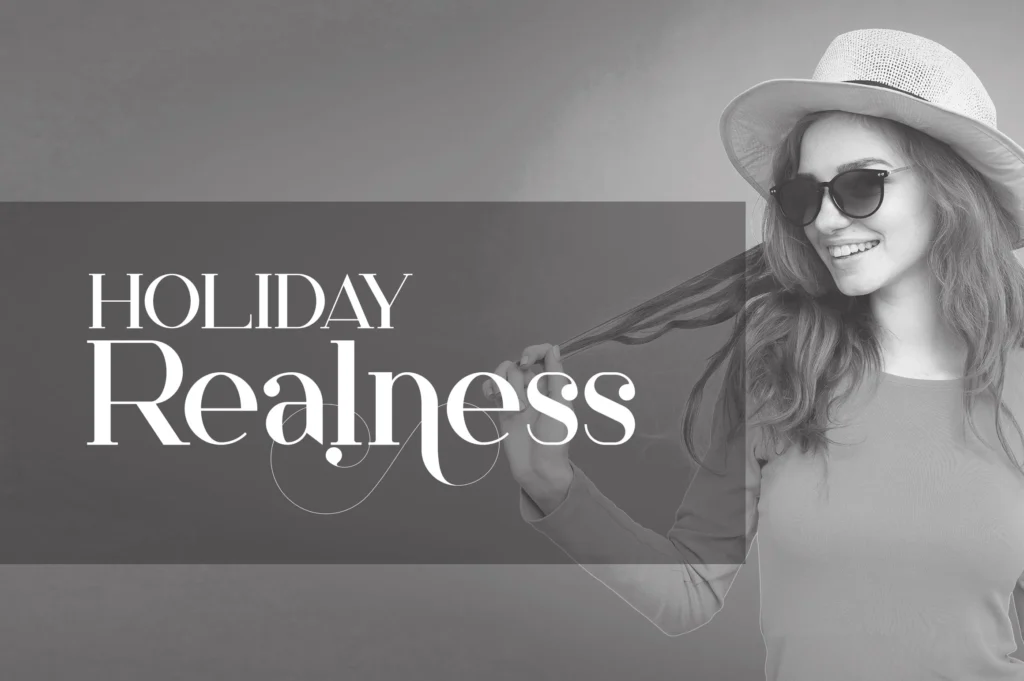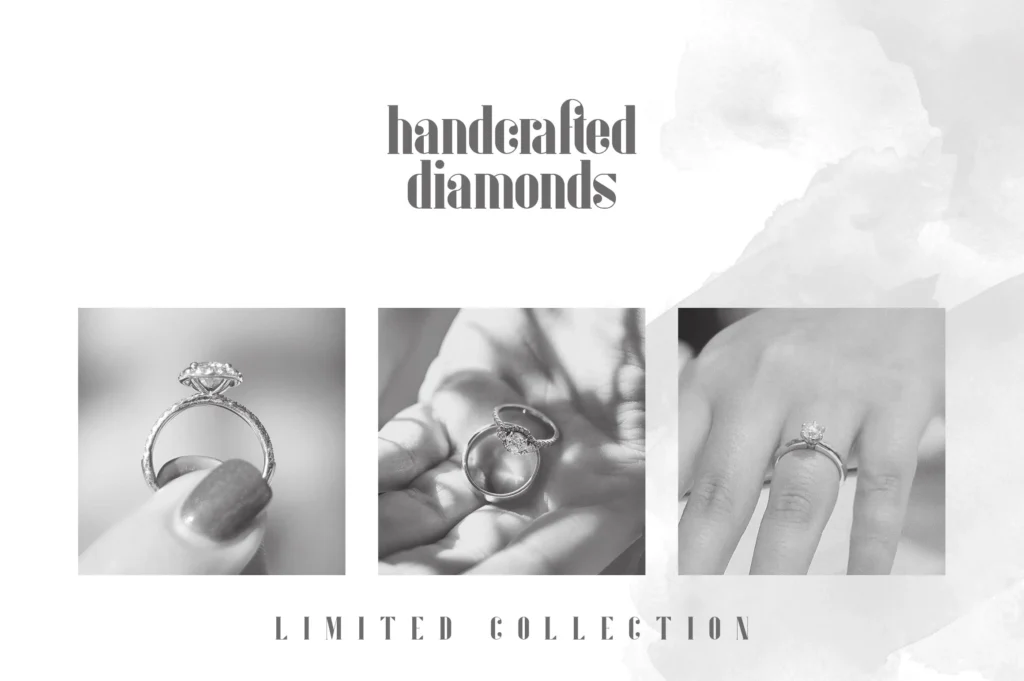
The Serif Font Collection
Introducing
The Serif Font Collection
by
VPcreativeshop – 21 fonts + Graphics in 6 typefaces
The Serif Font Collection is vintage, sophisticated bundle loaded with 21 fonts + Graphics. They are very versatile fonts that works great in large and small sizes.
This collection is perfect for branding projects, home-ware designs, product packaging, magazine headers – or simply as a stylish text overlay to any background image.
Uppercase, lowercase, numeral, punctuation & Symbol
14 single line illustrations – Ai, EPS , PSD and JPEG (perfect for logo designs, posters, t-shirt design and more)
Hairline
Light
Regular
Bold
Extra Bold
Black
Ligatures
Multilingual support
Uppercase, lowercase, numeral, punctuation & Symbol
6 weights
Hairline
Light
Regular
Bold
Extra Bold
Black
Alternate glyphs
Ligatures
Multilingual support
Uppercase,lowercase, numeral,punctuation & Symbol
Clean
6 weights – Extra light, Light, Regular, Bold, Extra bold, Black
Multilingual support
Uppercase, lowercase, numeral, punctuation & Symbol
Alternate glyphs
Ligatures
Multilingual support
Uppercase, numeral,punctuation & Symbol
Total 1060 glyphs
Cyrillic support – Russian, Ukrainian, Bulgarian and more
Alternate glyphs
Multilingual support
Uppercase,lowercase, numeral,punctuation & Symbol
Clean
Multilingual support
50 Ligatures